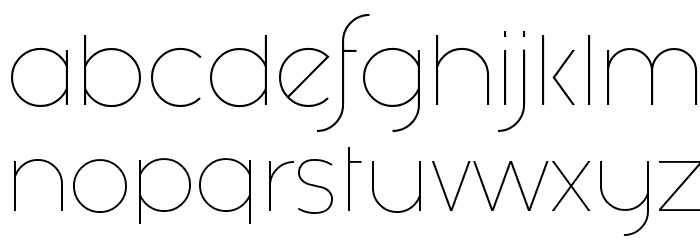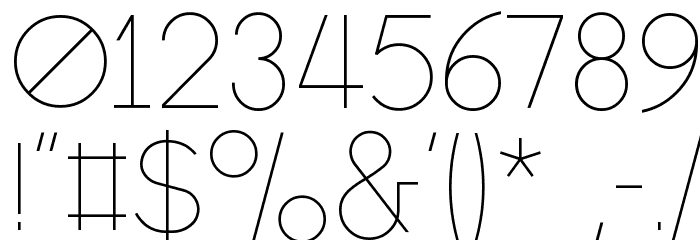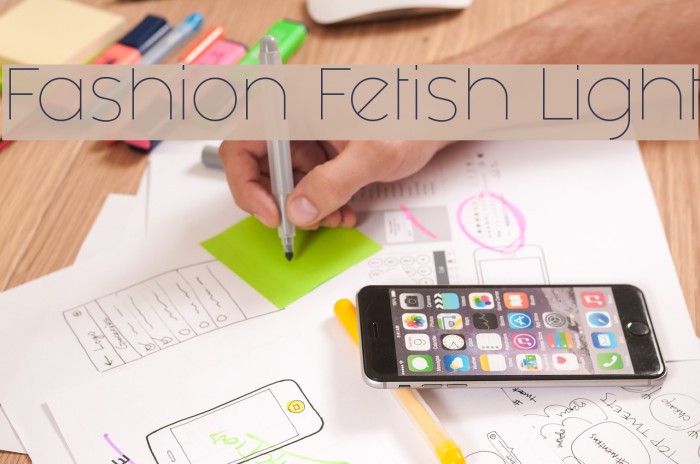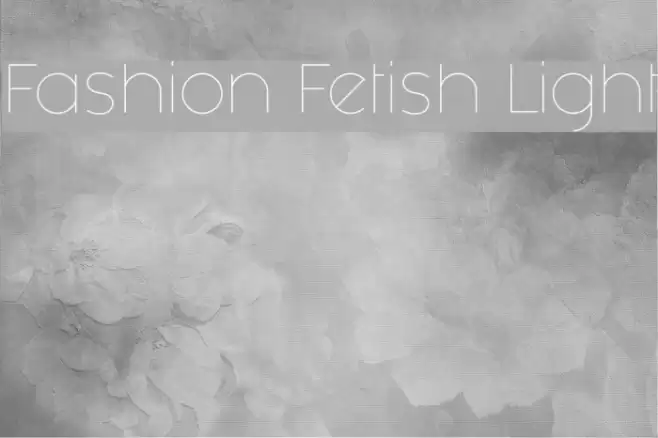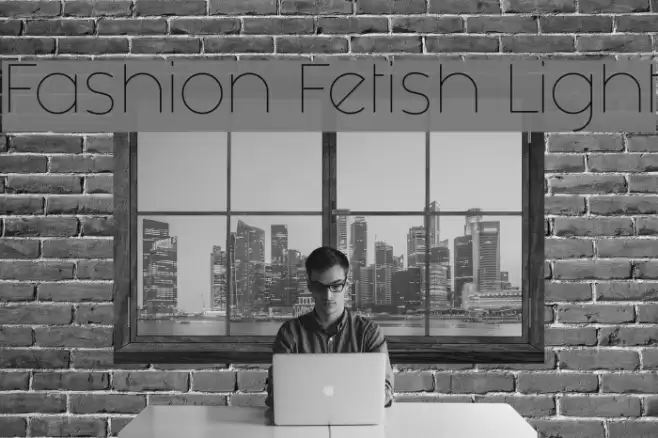
Fashion Fetish Light Font
This font features a sleek, minimalist design with clean lines and a modern aesthetic. The characters are evenly spaced, providing a harmonious and balanced appearance. The uppercase letters are tall and elegant, while the lowercase letters maintain a consistent style that complements the overall look. The numerals are distinct and easy to read, with a geometric influence that adds to the contemporary feel. The special characters are crafted with the same attention to detail, ensuring a cohesive look across all elements. This font is ideal for projects that require a sophisticated and stylish touch.
A sleek, minimalist font with clean lines and a modern aesthetic.
- Proposed Projects: Ideal for fashion branding, editorial design, luxury product packaging, and modern web design.